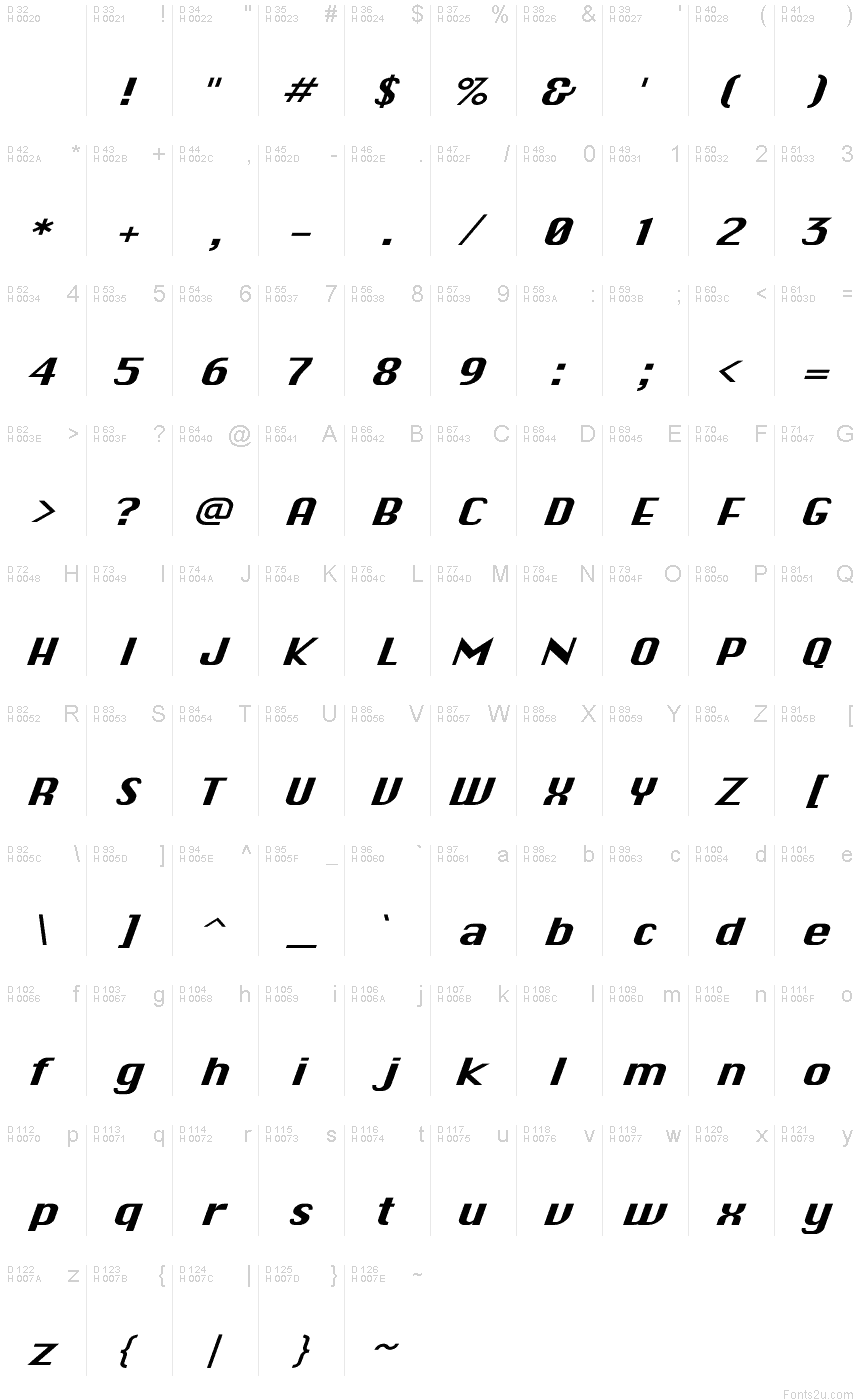
J-Phont is a free bold italic sans serif with a fast, forceful silhouette. Broad strokes lean sharply forward, and rounded curves keep the lettering from feeling rigid. Angled stroke endings make the motion even sharper.
Sports branding is its clearest fit, especially for team merchandise and event posters that benefit from lettering with a built-in sense of speed. The same slanted weight also suits motorsport graphics and action-game title cards, linking these uses through their shared emphasis on impact, competition, and forward movement.